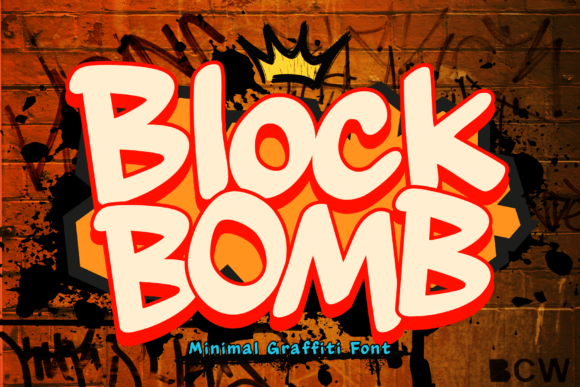
Introducing Blockbomb Font: The Ultimate Graffiti-Style Font for Creative Projects
Are you looking for a font that adds a touch of playfulness and authenticity to your designs? Look no further than Blockbomb Font! This cool, graffiti-tagging font is perfect for a wide range of projects, from blog posts and logos to branding, ads, invitations, greeting cards, planners, photo albums, decorations, and more.
What Makes Blockbomb Font So Special?
- Playful and Authentic: Blockbomb Font embodies the spirit of graffiti tagging, bringing a fun and carefree vibe to your designs.
- Versatile: Whether you’re working on a blog post, logo, or invitation, Blockbomb Font is the perfect choice.
- Easy to Use: Add Blockbomb Font to any of your designs and enjoy the results!
10 Creative Project Ideas Using Blockbomb Font
- Blog Posts: Add a graffiti twist to your blog posts and make them stand out from the crowd.
- Logos and Branding: Create a unique and memorable logo for your business or brand using Blockbomb Font.
- Ads and Marketing Materials: Grab attention with bold and eye-catching ads and marketing materials.
- Invitations and Greeting Cards: Make your invitations and greeting cards more personalized and special.
- Planners and Organizers: Add a touch of fun and personality to your planners and organizers.
- Photo Albums: Create beautiful and unique photo albums that showcase your memories.
- Decorations: Use Blockbomb Font to create fun and colorful decorations for parties, events, or everyday use.
- Social Media Graphics: Create engaging social media graphics that stand out from the crowd.
- Business Cards: Make your business cards more memorable and unique.
- Posters and Flyers: Create eye-catching posters and flyers that grab attention.
The Benefits of Using Blockbomb Font
- Unique and Creative: Blockbomb Font adds a touch of creativity and uniqueness to your designs.
- Easy to Read: Despite its graffiti-style, Blockbomb Font is easy to read and understand.
- Customizable: Experiment with different colors, sizes, and styles to make Blockbomb Font your own.
- Time-Saving: With Blockbomb Font, you can create professional-looking designs in no time.
Tips and Tricks for Using Blockbomb Font
- Experiment with Colors: Try out different colors and color combinations to make your designs pop.
- Mix and Match Fonts: Combine Blockbomb Font with other fonts to create a unique and interesting look.
- Play with Sizes: Experiment with different font sizes to create visual interest and hierarchy.
- Add Effects: Try adding effects like shadows, outlines, or textures to give your designs an extra boost.
In conclusion, Blockbomb Font is a versatile and creative font that’s perfect for a wide range of projects. With its playful and authentic graffiti-style, it’s sure to add a touch of fun and personality to your designs. Whether you’re a designer, artist, or simply someone looking to add some creativity to your projects, Blockbomb Font is a great choice. So why wait? Download Blockbomb Font today and start creating!